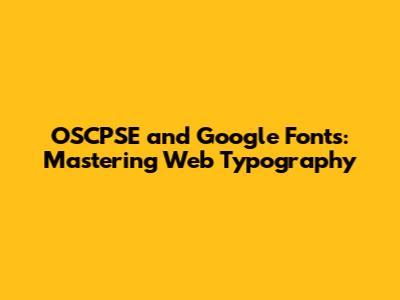
- Readability is King: The primary goal of any website is to convey information. If your fonts are hard to read, you've already lost the battle. Choosing fonts with excellent readability is non-negotiable.
- Brand Identity: Fonts are an essential part of your brand identity. They help create a cohesive visual experience that reinforces your brand's message.
- User Experience (UX): A well-designed website with appropriate typography enhances the overall user experience. Happy users are more likely to spend time on your site and engage with your content. This is a very important point for all web designers.
- Browse and Select: Head over to the Google Fonts website and start browsing. You can filter fonts by categories (serif, sans-serif, display, etc.), language, and other criteria. Play around and find fonts that fit your brand's aesthetic.
- Font Pairing: Once you've chosen a font, you need to combine them to improve the appearance of the web page. Google Fonts suggests font pairings. Think about pairing a clean sans-serif for headings with a more readable serif font for body text.
<head>section of your HTML document. You can also download the fonts and host them yourself or use CSS@import. This ensures that they will look perfect. - Contrast is Key: Choose fonts that have a good contrast. Don't use two fonts that are too similar, as it can be difficult to differentiate between them. A good rule of thumb is to contrast font styles.
- Limit Your Choices: Don't go overboard. Sticking to two or three fonts is usually ideal. Too many fonts can make your design look cluttered and confusing. This keeps your design clean and your users' experience optimal.
- Consider the Purpose: Think about the purpose of each font. Use a bolder, more eye-catching font for headings and a more readable font for body text.
- Minimize Font Weights: Don't load every weight and style of a font. Choose the ones you need. Less is more, and the fewer the assets, the faster the loading speeds.
- Legibility: Make sure your font choices are legible. Avoid overly decorative or stylized fonts for body text.
- Color Contrast: Ensure sufficient color contrast between the font and the background. This improves readability for people with visual impairments.
- Font Size: Use an appropriate font size. The ideal size depends on the font, but generally, 16 pixels is a good starting point for body text. This will help your users.
- Font Size, Weight, and Style: Use CSS properties like
font-size,font-weight, andfont-styleto adjust the appearance of your text. - Line Height and Letter Spacing: Fine-tune the spacing between lines and characters for better readability.
- Text Transformation: Use
- Overuse of Fonts: Don't use too many different fonts. It's distracting and can make your design look cluttered.
- Poor Readability: Always prioritize readability. Ensure that your fonts are easy to read on all devices.
- Ignoring Contrast: Pay attention to contrast. Make sure your text has enough contrast with the background. Low contrast makes it really hard to read.
Hey guys! Ever wondered how to make your website look super slick and professional? Well, a big part of that is choosing the right fonts. And if you're diving into the world of web development, especially if you're working towards something like OSCPSE (Offensive Security Certified Professional Security Expert), understanding typography is a must-have skill. One of the best resources out there is Google Fonts, and today, we're going to break down how to use it effectively. We'll explore how OSCPSE principles apply to web design and why mastering Google Fonts is a game-changer for your projects. Get ready to level up your web design game!
Why Typography Matters: The Foundation of Good Design
Alright, let's get down to brass tacks: why should you care about fonts? Think of your website as a digital storefront. The fonts you choose are like the clothes your store wears. They communicate your brand's personality, make your content readable, and ultimately influence how visitors perceive your work. In the realm of web design, especially when aiming for a polished look suitable for security-focused projects, typography is absolutely critical. Imagine a website dedicated to cybersecurity principles. Would you trust it if it used Comic Sans? Probably not! Your font choices directly impact credibility.
OSCPSE and the Importance of Attention to Detail